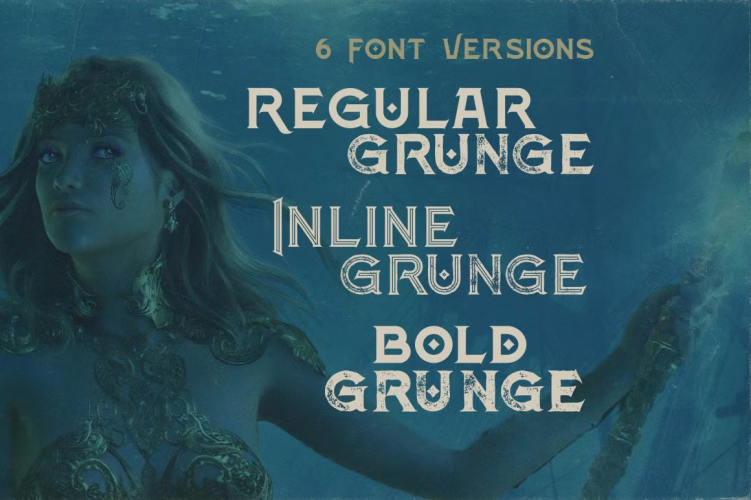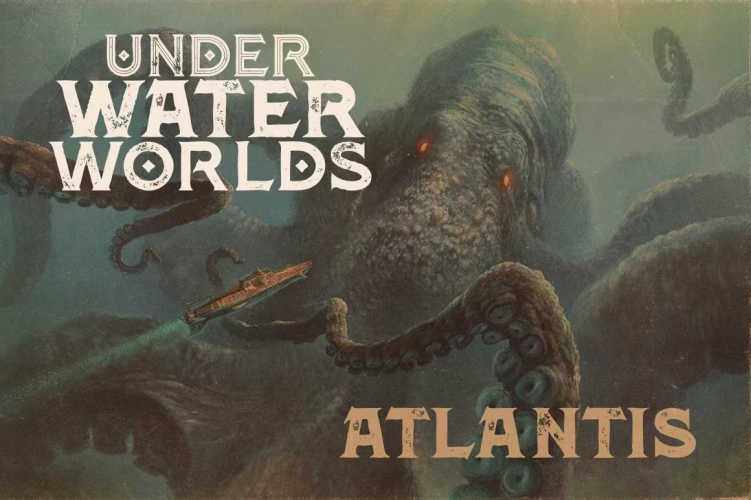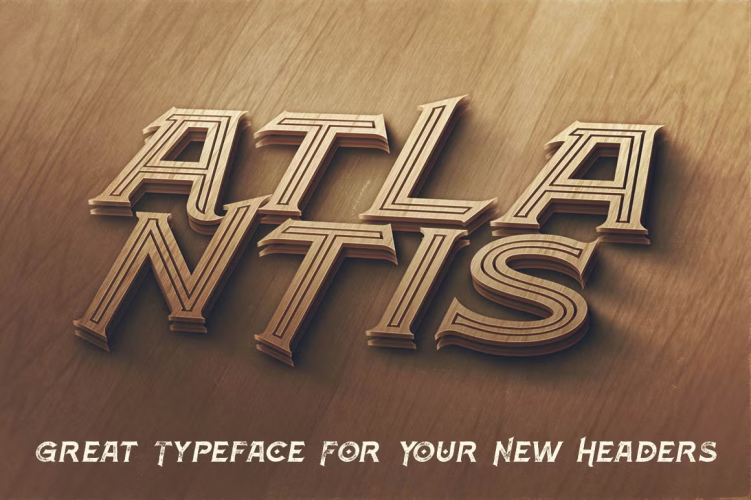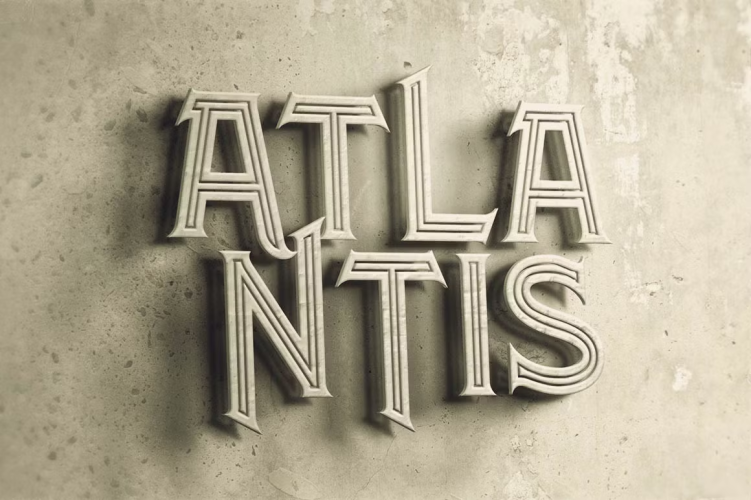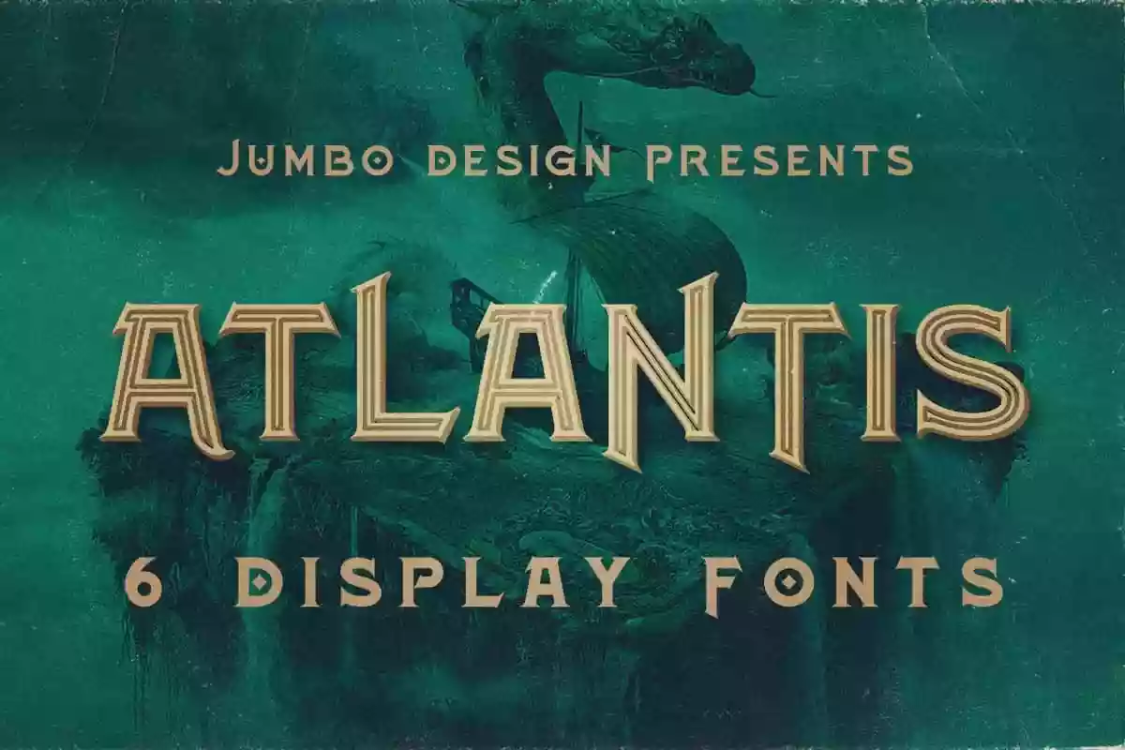
Atlantis Font
Atlantis is an extraordinary vintage and retro font that plays to the inviting retro ambience of past imaginations. Reflecting the letterforms’ classic look and long-lasting appeal, this font quickly produces the illusion of the atmosphere of mid-century style.
The Atlantis font originates from vintage signage, old-fashioned advertisements, and retro typography. Its incoming ideas give off feelings of nostalgia and authenticity. Its weathered edges, subtle imperfections, and worn-out textures make it look like those bygone days or any of your old belongings, making you feel very cosy and comfortable.
The Atlantis font can be used for logos, package designs, advertisements, or apparel designs, and it adds a touch of retro look and old-school divinity to an entire project. As a versatile typeface, it is suitable for various purposes, whether the diner menu down the street or the traditional-style logo. It can also be used in the retro event poster or vintage website design.
Atlantis Font is a Display Fonts font that brings a professional and versatile look to your projects. Atlantis is an extraordinary vintage and retro font that plays to the inviting retro ambience of past imaginations.